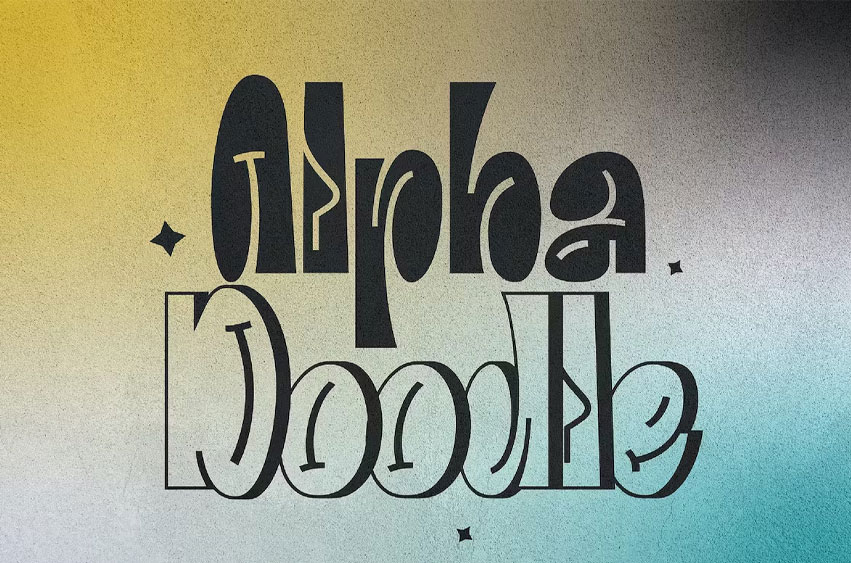
Alpha Doodle Font
Alpha Doodle Font - Doodling is a style of handwriting where letters or art is drawn absentmindedly. Discover a world of captivating typography for your. Ideal for children's books, playful. Alpha doodle regular otf (400) by hipfonts. Explore alpha doodle fonts at myfonts.